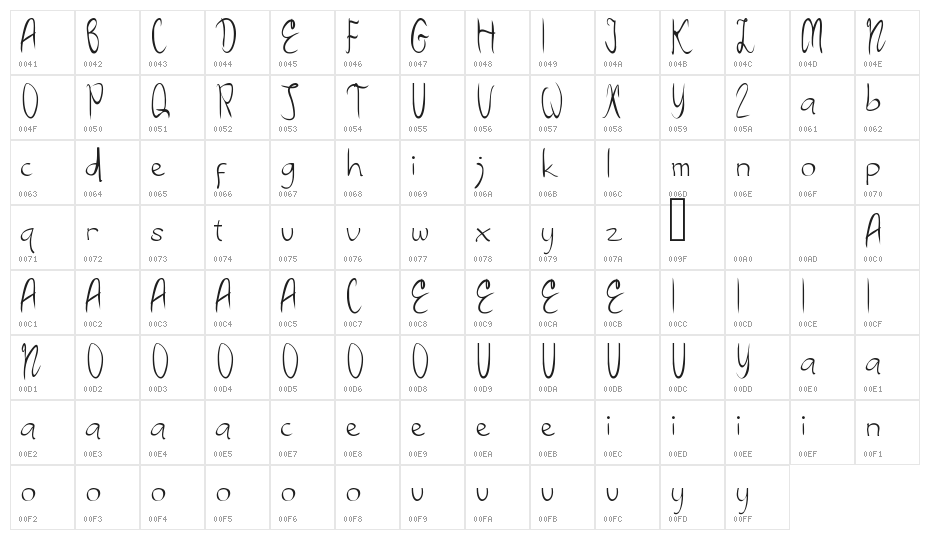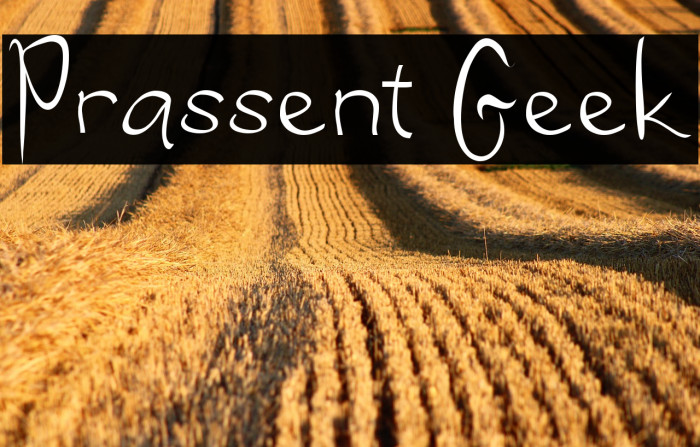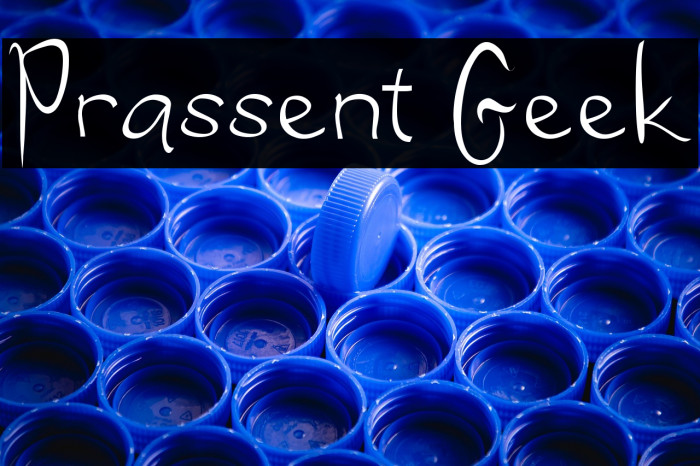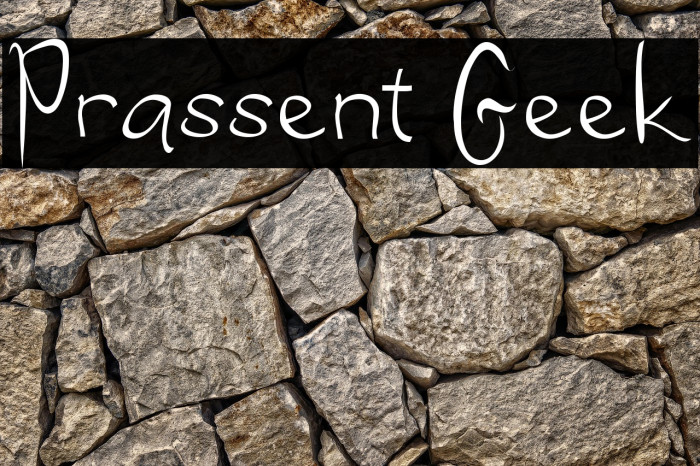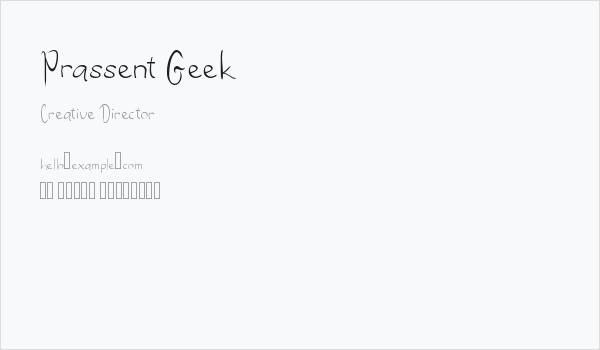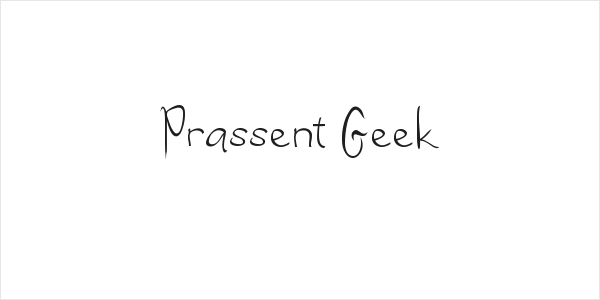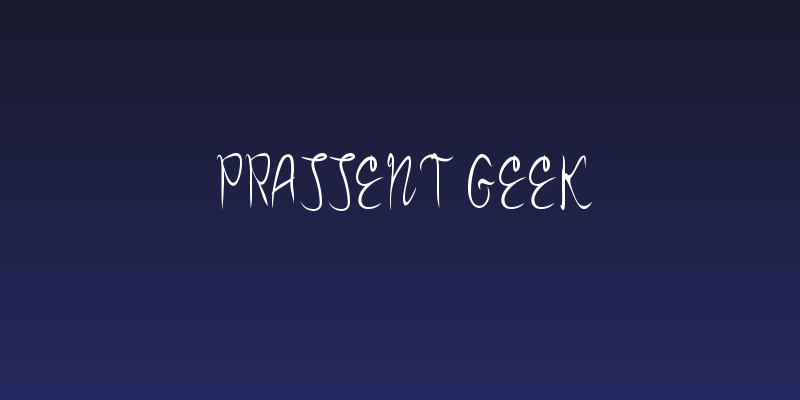
Prassent Geek Font
Prassent Geek Description
This font features a whimsical and playful design with a handwritten style. The characters have a unique, flowing appearance, with varying stroke thickness that adds a dynamic feel. The uppercase letters are tall and slender, while the lowercase letters maintain a consistent, rounded form. The font includes a full set of uppercase and lowercase letters, numbers, and a selection of special characters. Its distinctive style makes it suitable for creative projects where a personal touch is desired.
Use CaseLogos, Invitations, Creative projects
Proposed ProjectsIdeal for greeting cards, invitations, personal branding, and creative posters.